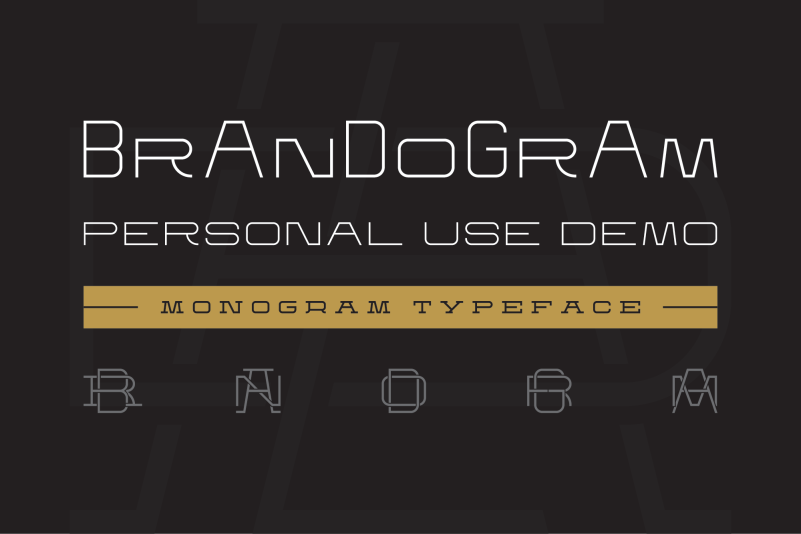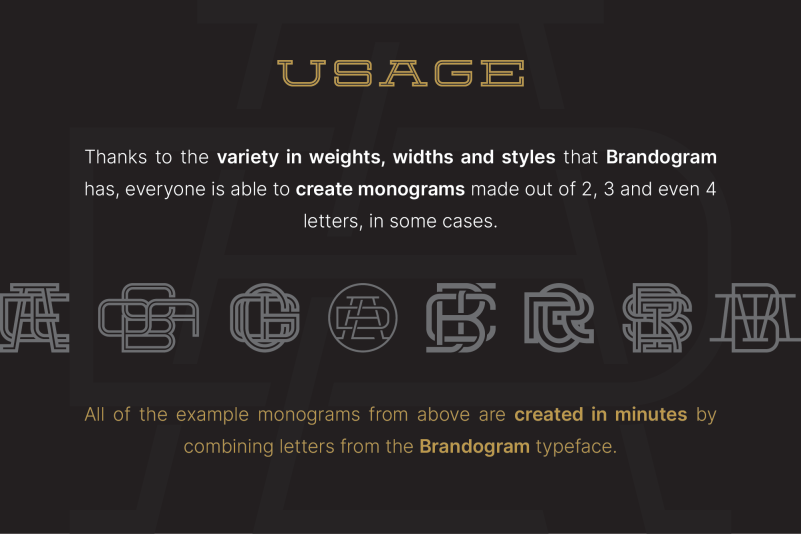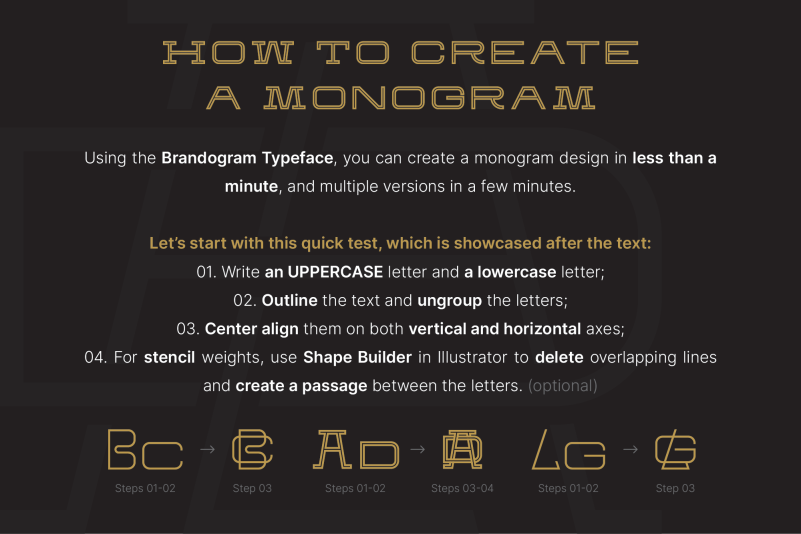
Brandogram Font
After months of testing and development, we have managed to put together the Brandogram Typeface, an ultimate tool for monogram design. With the help of this typeface you can easily create a monogram in less than a minute.
Thanks to the way we have created and optimised Brandogram, the uppercase letters effortlessly fit together with the small caps that are activated by the lowercase letters.